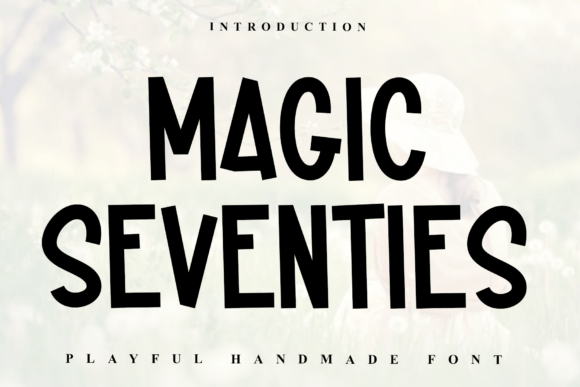
Magic Seventies Font
Choosing the right font for a project is like picking the perfect accessory for an outfit—subtle, yet essential. When I was redesigning the header for a lifestyle blog focused on mindfulness and self-care, I found myself drawn to Magic Seventies. This display font has a quiet confidence that feels both modern and nostalgic, making it ideal for editorial projects that aim to balance warmth with clarity.
Magic Seventies for Blog Headers and Editorial Branding
Magic Seventies is a tall, friendly font with a charmingly uneven, monoline weight. Its slightly condensed and clean vertical structure gives it a straightforward, yet approachable, personality. As a display font, it’s not meant for body text, but its visual rhythm makes it excellent for headers, titles, and branding elements that need to stand out without overwhelming the reader.
In the case of the lifestyle blog, using Magic Seventies for the main header created a sense of calm authority. The font’s subtle irregularities add character without distracting from the message. It felt like a warm greeting rather than a loud statement, which aligned perfectly with the publication’s tone.
Magic Seventies for Ebook Titles and Digital Magazines
When designing the cover of a recipe ebook, I wanted a font that felt inviting and trustworthy. Magic Seventies provided just that. Its slightly uneven stroke gives it a handcrafted feel, which works well for content that leans into personal storytelling or artisanal themes. The font’s clean vertical structure ensures it remains legible even at larger sizes, making it a strong choice for ebook titles and digital magazine covers.
The font also pairs well with more traditional serif fonts for body copy. For example, using Magic Seventies for the title and a classic serif like Georgia or Garamond for the recipe instructions created a balanced, professional look. This combination supports readability while maintaining visual interest.
Magic Seventies for Newsletter Graphics and Social Media
For a monthly newsletter aimed at creative entrepreneurs, Magic Seventies worked wonders as a pull quote font. Its friendly, slightly uneven appearance added a human touch to the content, making it feel more personal and engaging. Whether used in a header, a callout box, or a social media graphic, the font maintains its charm without sacrificing clarity.
On mobile devices, Magic Seventies holds up well, especially when used in larger sizes. Its slightly condensed nature means it takes up less horizontal space, which is helpful for short headlines or captions. However, it’s best to avoid using it for small text or dense paragraphs, as the uneven strokes can make it harder to read at a glance.
Magic Seventies for Printable Planners and Coaching Workbooks
When creating a printable planner for a wellness coaching business, I needed a font that felt both professional and approachable. Magic Seventies fit the bill. Its clean vertical structure made it easy to read in print, while the slight irregularity gave it a personalized, handcrafted feel that resonated with the brand’s identity.
This font also works well in workbooks where the goal is to inspire and guide the reader. Using it for section headings or key takeaways helped create a clear visual hierarchy without disrupting the flow of the content. Pairing it with a simple sans serif like Open Sans for the body text ensured the design remained functional and accessible.
Magic Seventies for Editorial Layouts and Content Branding
As an editorial designer, I often look for fonts that can help define a publication’s voice. Magic Seventies has a unique ability to blend modern typography with a touch of retro charm. It’s not overly decorative, but its personality adds a layer of depth that can elevate a layout without overpowering it.
Whether used in a feature page, a course PDF, or a digital magazine, Magic Seventies contributes to a cohesive brand identity. It’s especially effective when used sparingly, such as for pull quotes, chapter openers, or decorative accents. The font’s versatility allows it to adapt to different editorial moods while maintaining a consistent aesthetic.
Before using Magic Seventies in any project, it’s important to check the font’s available styles, alternates, and ligatures. These features can enhance the font’s usability and ensure it meets the needs of your specific design. Additionally, verifying multilingual support and commercial licensing is crucial if the font will be used in ebooks, templates, or client projects.
Magic Seventies is a premium font that offers both style and substance. Its charm lies in its ability to feel familiar yet distinctive, making it a valuable addition to any designer’s toolkit. Whether you’re working on a lifestyle blog, a recipe ebook, or a printable planner, this display font can help bring your vision to life with a touch of warmth and character.